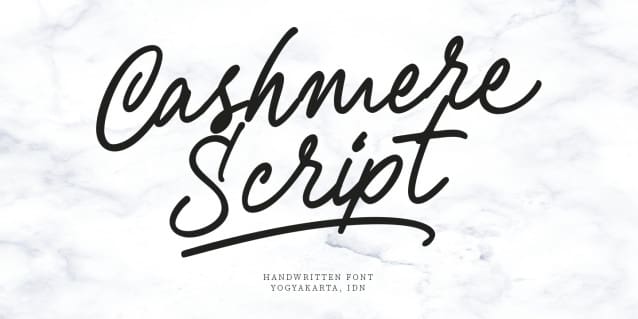
Cashmere Script Font
Cashmere Script Font,  a handwriting font that exudes effortless femininity and chic sophistication. With its casual monoline style, this font is perfect for adding a touch of elegance to any design project, especially in logo, and the other various formal forms such as invitations, labels, logos, magazines, books, greeting / wedding cards, packaging, fashion, make up, stationery, novels, labels or any type of advertising purpose.